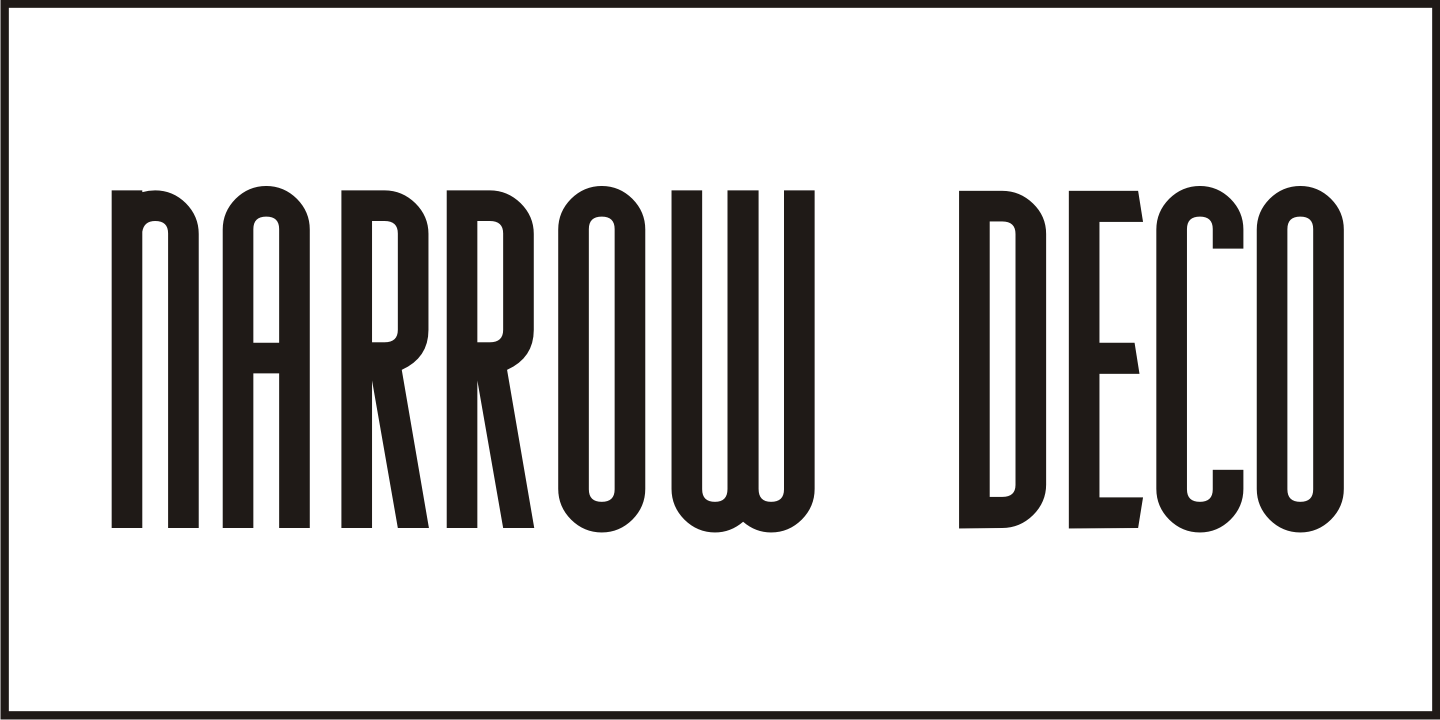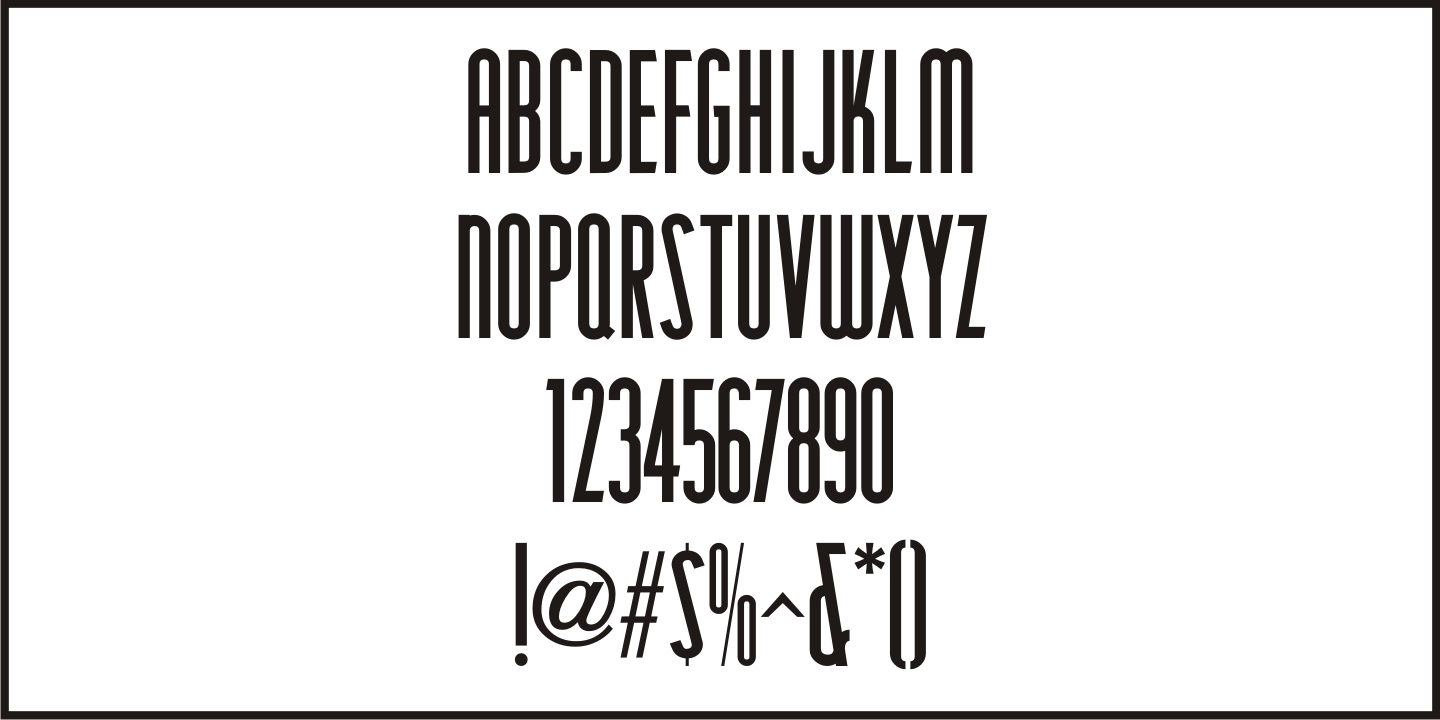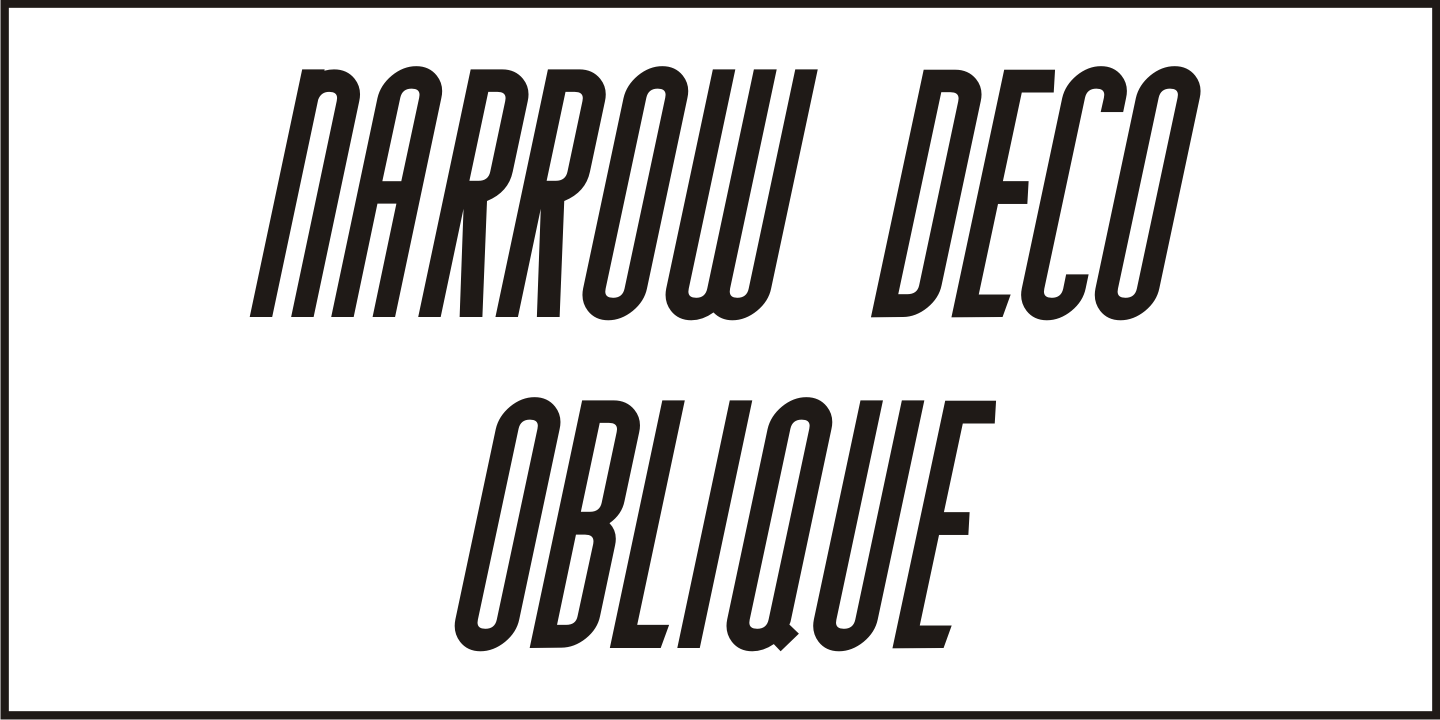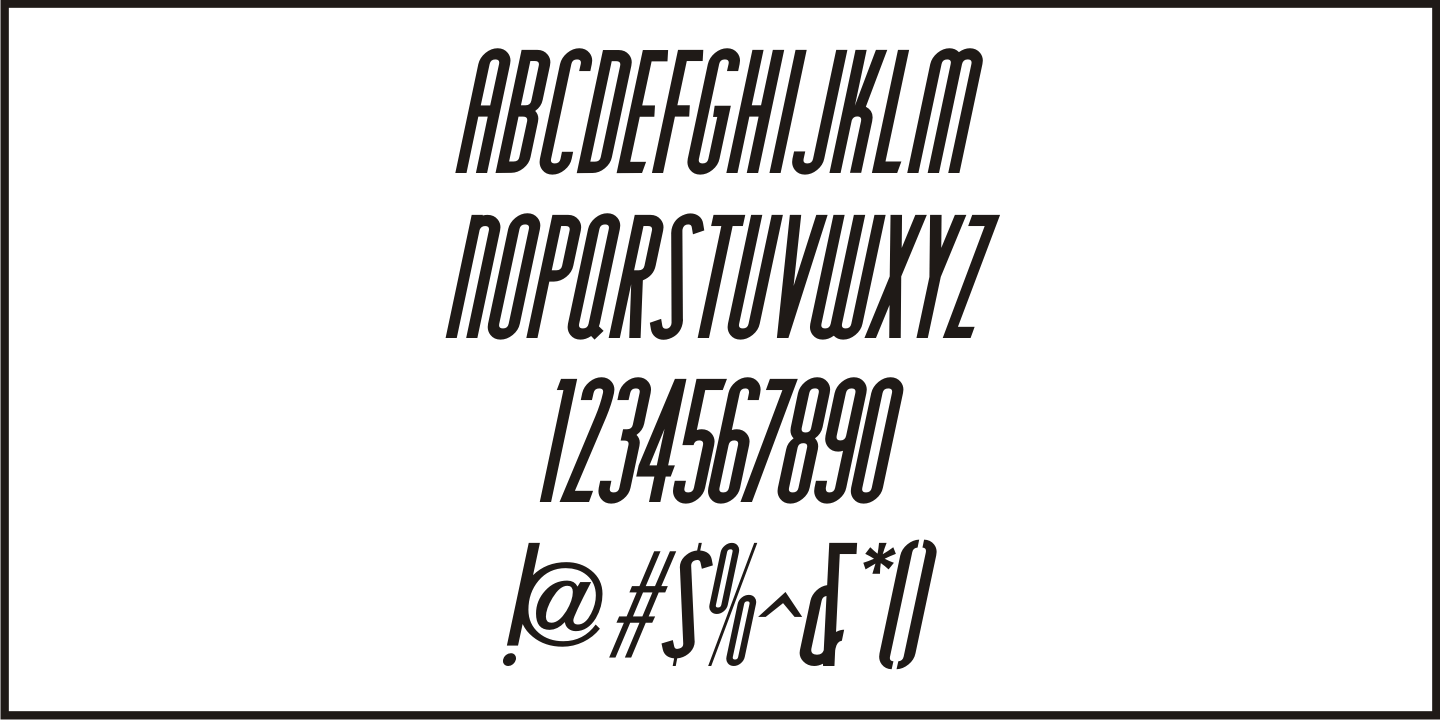
Narrow Deco
The hand lettered word 'puzzles' from the box cover of a 1940s set of metal 'connected” puzzle pieces manufactured by the A.C. Gilbert Company was the initial typographic model, but some additions and changes were made.
Instead of the right side of the 'P' being a semi-circle, it was changed to a more conservative ''squared' look. After drawing out all of the necessary glyphs, the overall height of the characters was extended to make the letters and numbers appear taller and narrower.
The end result is Narrow Deco JNL, which is available in both regular and oblique versions.